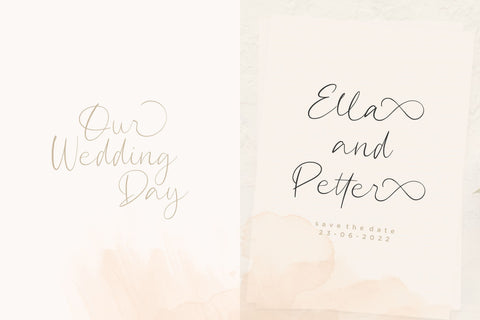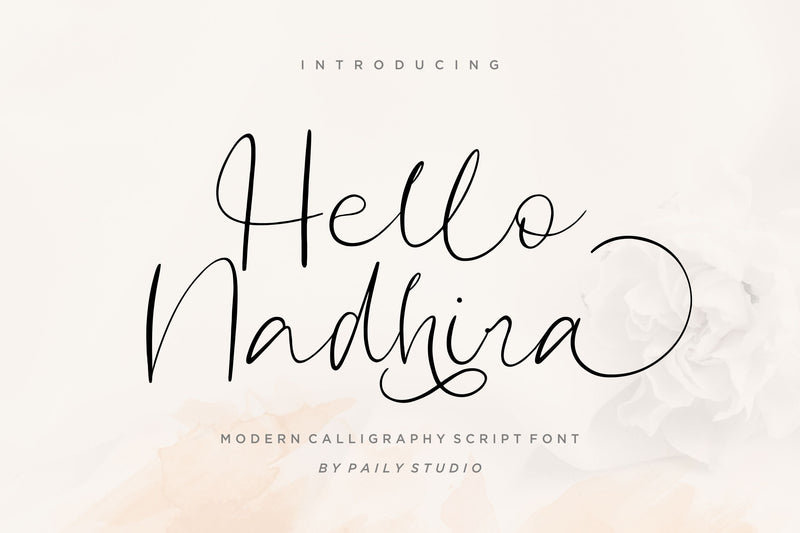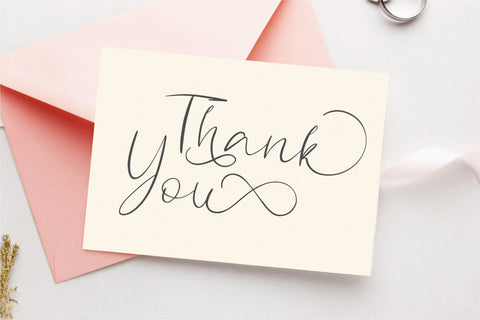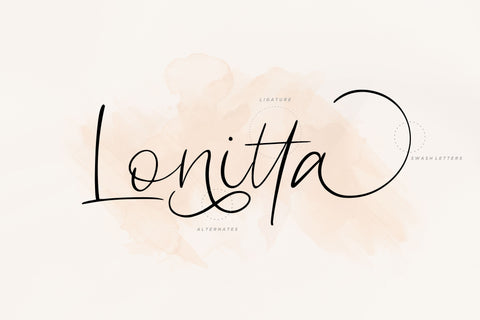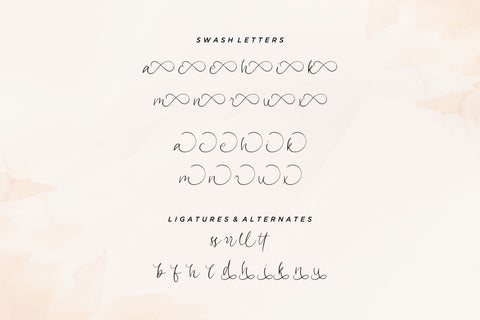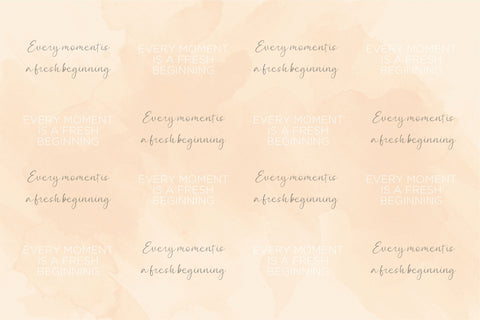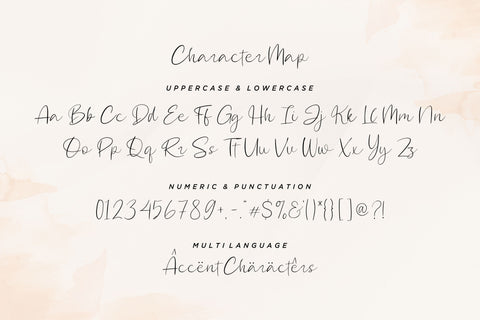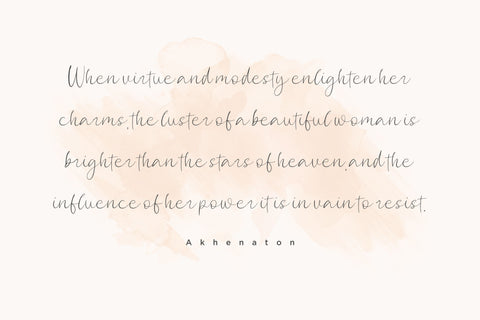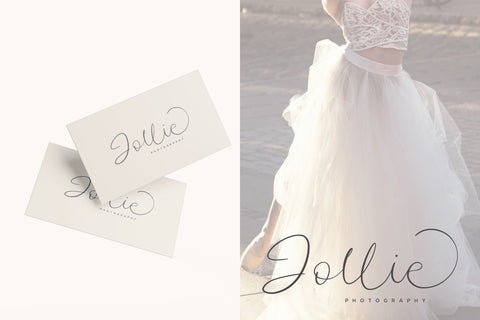
Hello Nadhira Modern Calligraphy Script Font
Introducing by Paily Studio!
Hello Nadhira is a Modern Calligraphy Script Font.
Hello Nadhira can be used for wide ranges of application, such as wedding design, branding project, logo, poster, name card, invitations, social media posts, and others.
Feature : Ligature, alternates and Swash.